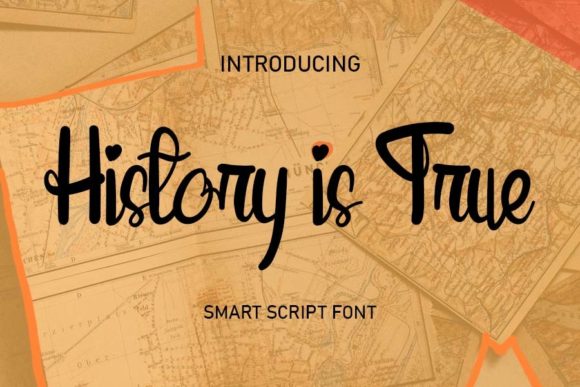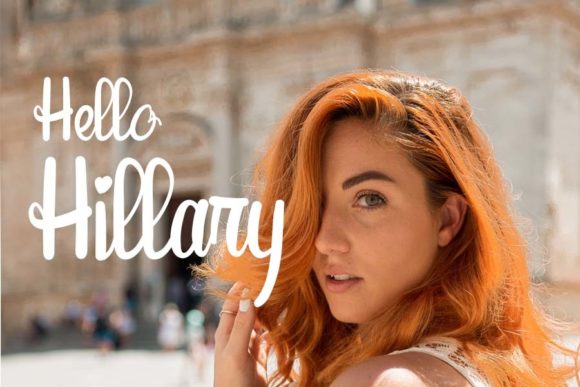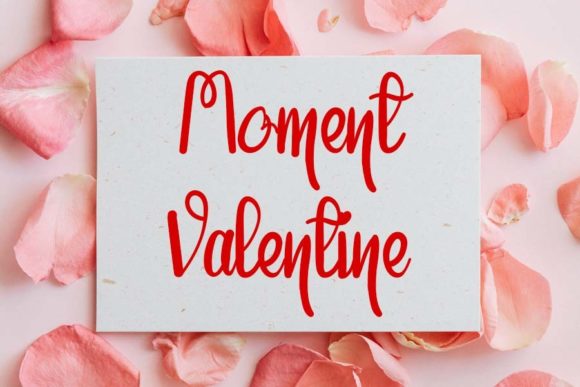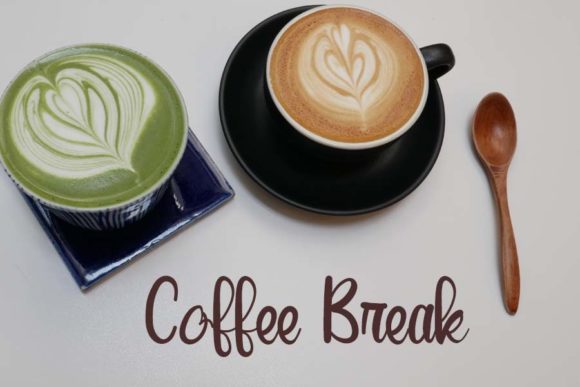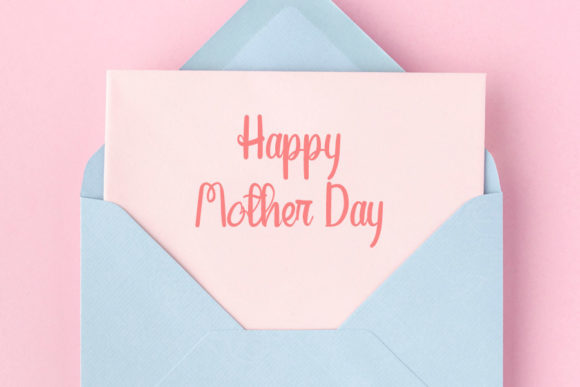
About History is True Font
“History is True” is a romantic and sweet handwritten font that brings a sense of romance and charm to your designs. With its casual yet elegant influences, this font has the power to transform any of your lovely creations into true pieces of art.
The romantic nature of “History is True” shines through its delicate and graceful letterforms. The flowing strokes and subtle curves evoke a sense of beauty and tenderness. This font adds a touch of romance and warmth to your designs, making them captivating and heartfelt.
The casual yet elegant influences in “History is True” create a harmonious balance between simplicity and sophistication. The font’s relaxed and effortless appearance adds a natural and authentic feel to your designs. It strikes the perfect balance between being approachable and visually appealing.
By incorporating “History is True” into your designs, you have the opportunity to turn them into true pieces of art. The font’s romantic and sweet nature enhances the emotional impact of your creations. Whether you’re designing love letters, wedding invitations, or any other project that requires a touch of romance, “History is True” elevates the beauty and significance of your work.
The versatility of “History is True” allows it to be applied to various design contexts. Its casual elegance makes it suitable for a wide range of projects, including quotes, greeting cards, logos, and more. It brings a sense of artistry and sophistication to your designs, turning them into true masterpieces.
In summary, “History is True” is a romantic and sweet handwritten font that adds a touch of elegance and charm to your designs. Its casual yet elegant influences create a beautiful balance that can transform your lovely creations into true pieces of art. Embrace the romance and artistic quality of “History is True” and witness how it enhances the beauty and emotional impact of your designs.